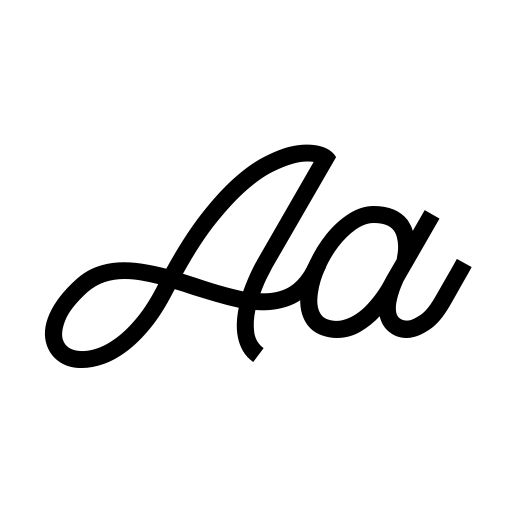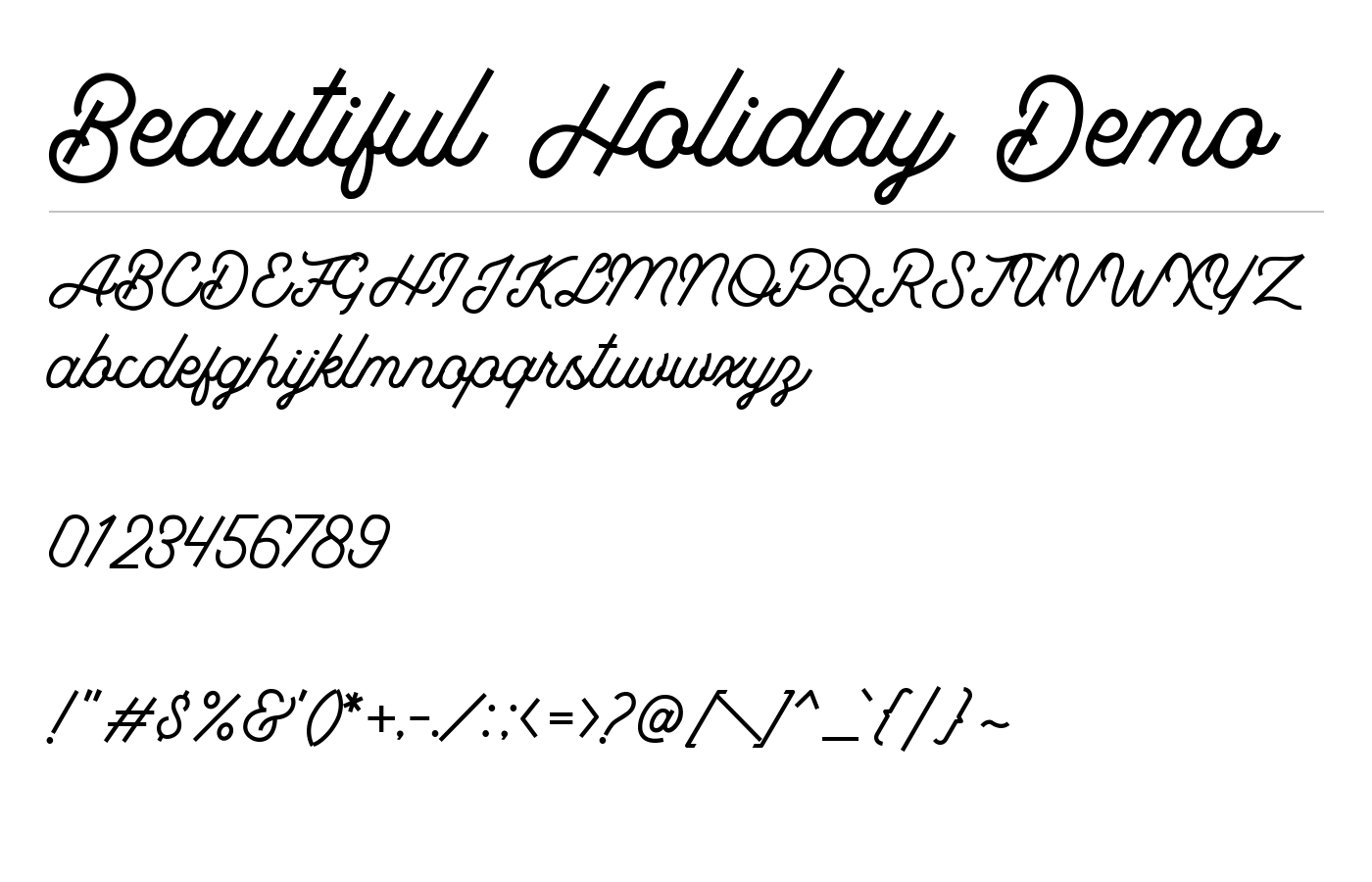
Beautiful Holiday Demo is a graceful script font featuring smooth, flowing strokes with a light weight and a slightly condensed width. Its elegant, connected letterforms evoke a classic, handwritten feel, making it ideal for festive invitations, stylish branding, and decorative headlines where a warm, personal touch is desired. This font shines in projects that call for charm and sophistication without sacrificing readability.
Beautiful Holiday Demo Font
About Beautiful Holiday Demo Font